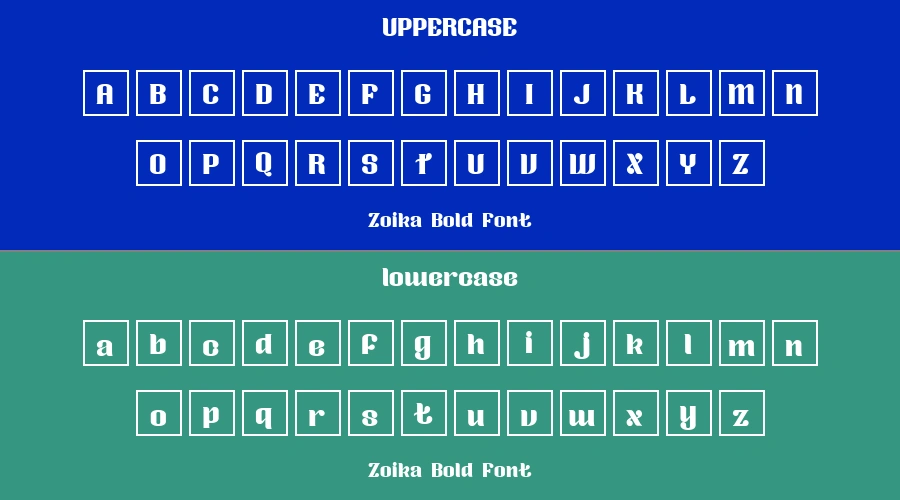
About Zoika Bold Font
Designed with precision, Zoika Bold Font merges dramatic weight with versatility in every character. This versatility makes it particularly effective for logo design, where memorability and brand power directly impact communication quality. Each letterform demonstrates meticulous craftsmanship.
Technical excellence shines through elements like fluid connections and contextual alternates, enhancing typographic versatility. In identification tags settings, Zoika Bold Font proves its worth through superior multi-language support. The thoughtful execution of vertex treatment and modern touches ensures professional results.